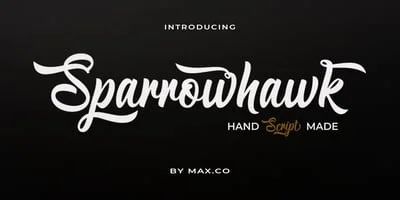
Sparrowhawk Script
Sparrowhawk Script Font
Sparrowhawk Script Font is perfect for nature conservation campaigns, wildlife photography logos, outdoor adventure branding, falconry event materials, hunting lodge identity, bird watching publications, environmental education graphics, wilderness expedition materials, natural heritage projects, and soaring applications that celebrate the majesty and grace of birds of prey and wild nature.
What makes Sparrowhawk Script Font truly exciting is its dynamic capture of avian grace and predatory precision that embodies the swift elegance and keen intelligence of raptors in their natural element. This exceptional typeface combines flowing script beauty with sharp focus, featuring graceful letterforms and aerodynamic character that convey both natural elegance and hunting prowess. The font's bird-of-prey personality and wilderness authenticity make it perfect for brands seeking to communicate natural power, environmental awareness, and the inspiring connection between human observation and the magnificent world of wild raptors.
The Sparrowhawk Script Font family includes multiple weights and styles: Light, Regular, Bold, Soaring, and Wild variations designed for maximum avian impact. Each family member maintains the distinctive raptor-inspired character while offering flexibility for diverse wildlife applications and nature-focused branding systems. The comprehensive character set supports outdoor typography needs and wildlife design elements, making it suitable for international conservation communications.
When you choose Sparrowhawk Script Font, you're selecting a typography flight that delivers authentic wildlife credibility and natural elegance to every conservation project. This graceful typeface excels in applications where natural beauty and environmental connection are essential, delivering exceptional avian appeal while maintaining wilderness authenticity. Whether you're designing conservation brands, outdoor campaigns, wildlife materials, or environmental education content, this font provides the natural grace and raptor precision that resonates with nature enthusiasts who appreciate wildlife protection, environmental stewardship, and the breathtaking beauty of birds of prey in their magnificent natural habitat.